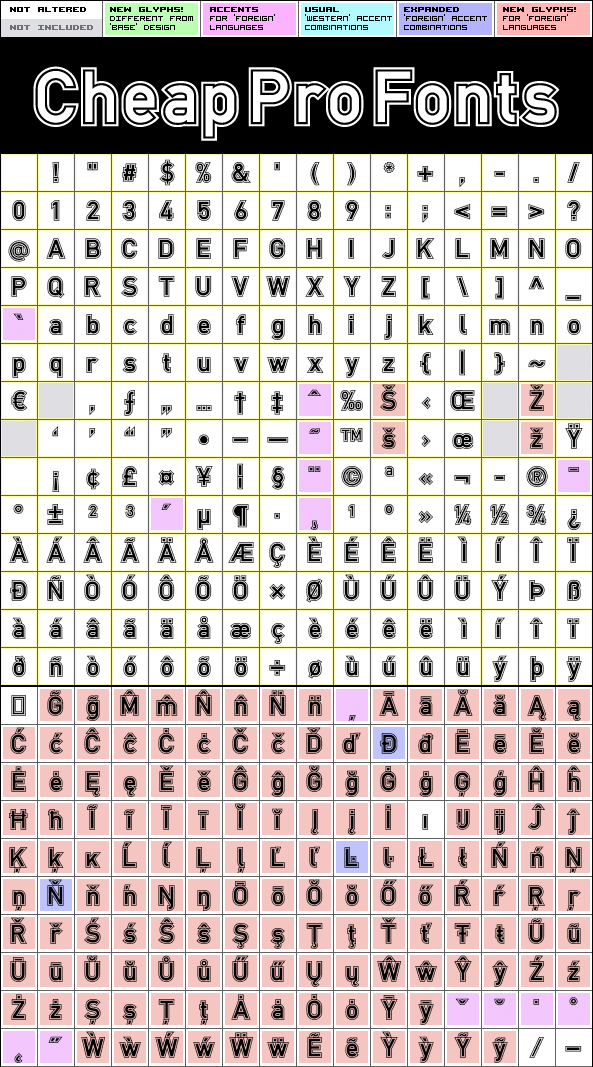
DINfun Pro College
DINfun Pro College by Roger S. Nelsson
379 glyphs!
725 class kernpairs
= 12902 kerning pairs
A "double outline" variant of the classic DIN 1451 Mittelschrift - for that college jacket / university team look ;)
The surrounding outline is placed outside the letter shapes, resulting in a font slightly larger than the rest of the family - so all the spacing and kerning has been redone.
DINfun Pro College is a professionally reworked font that contains an extended character set for setting text in 65 languages requiring more than the basic A-Z!